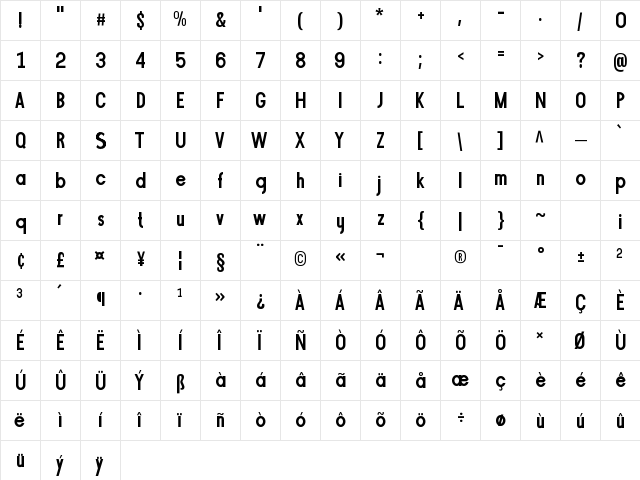
Gibster Regular
| Foundry | Wellscript Studio |
| Designer | Welianto |
Design Context for Gibster Typeface
Gibster is a composed and adaptable typeface that performs quietly and consistently across a wide range of design contexts.